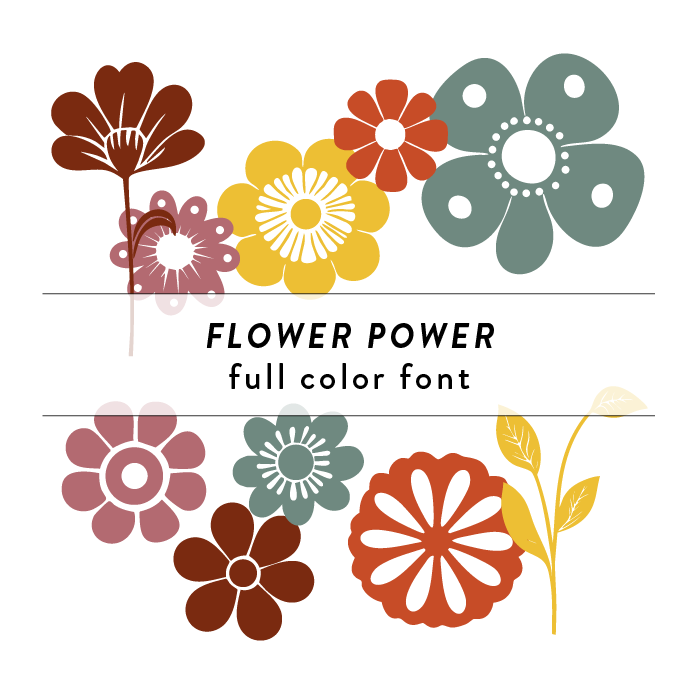
Flower Power Full Color Font is a whimsical and vibrant font design inspired by nature. Featuring intricate floral patterns, branches, and leaves, this font adds a playful and creative touch to any project. Perfect for craft enthusiasts and nature lovers looking to add a unique and colorful element to their designs. This font is a OTF craft font that will appear in color only when used with the silhouette software.